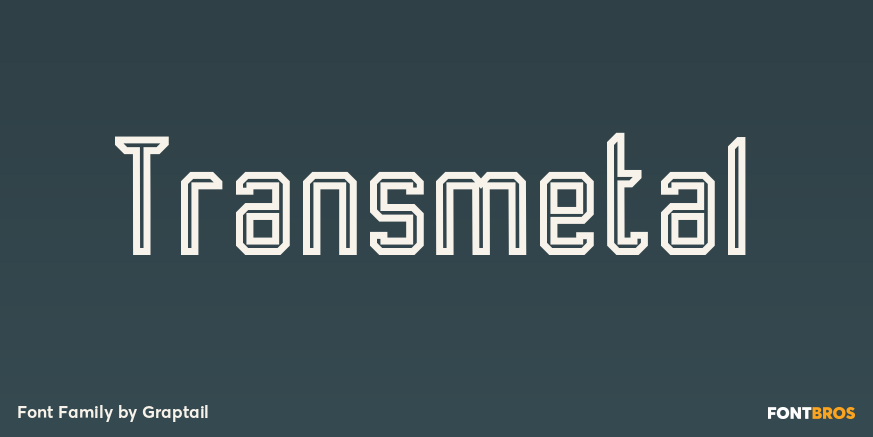
Transmetal
Transmetal is a condensed display typeface is inspired by industrial logo-types, and makes for a powerful headline font. It\’s strong appearance will be useful when creating commanding titles and headlines that demand attention. The special encounter between…